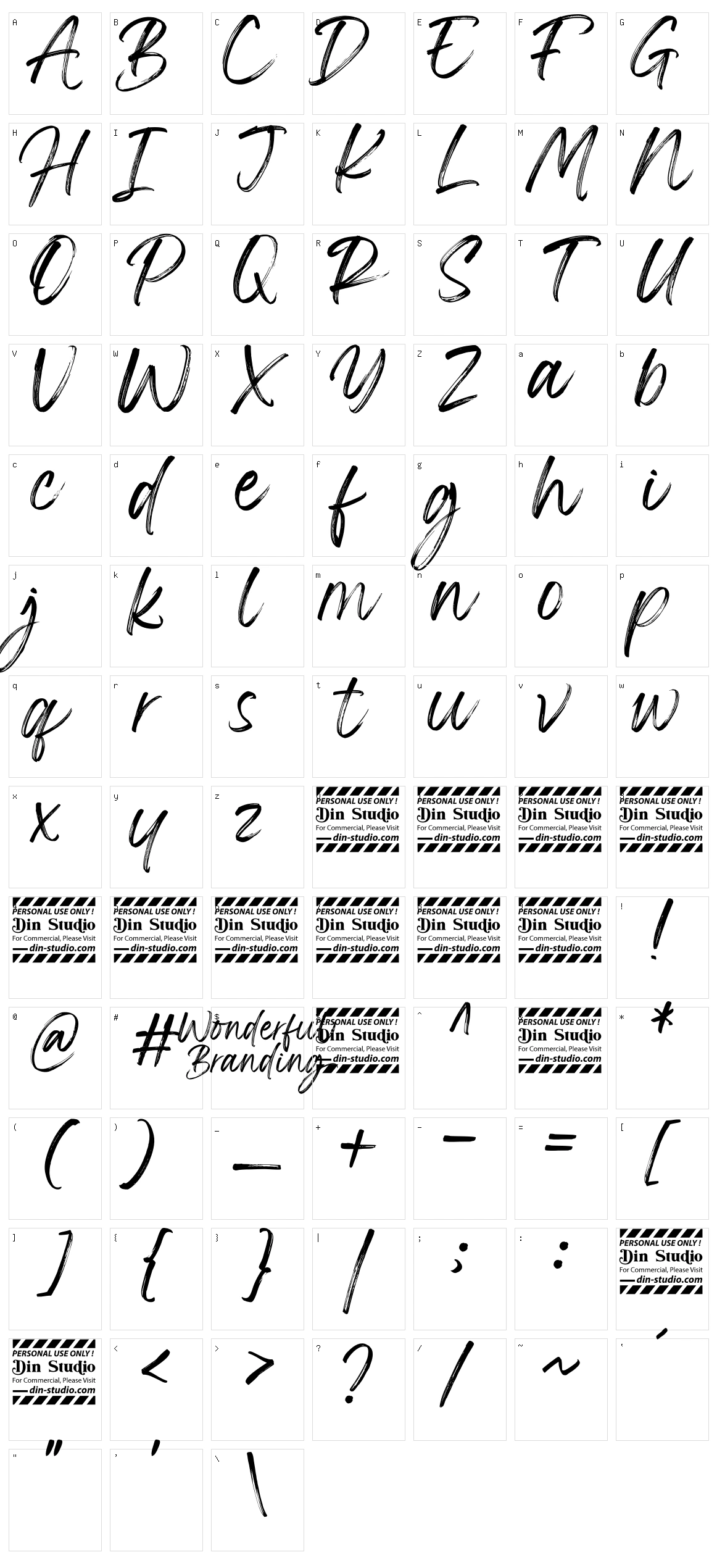
The free font Wonderful Branding is carefully designed by Din Studio, showcasing a thoughtful balance of creativity and usability and falls under the Script font style. When you download the ZIP file, it contains only 759.9 KB of font files, making it lightweight and quick to download. Please review the license details below to understand permitted usage and distribution rights. If license information is not available, we recommend using this font for personal projects only or contacting the author directly for commercial usage permissions.